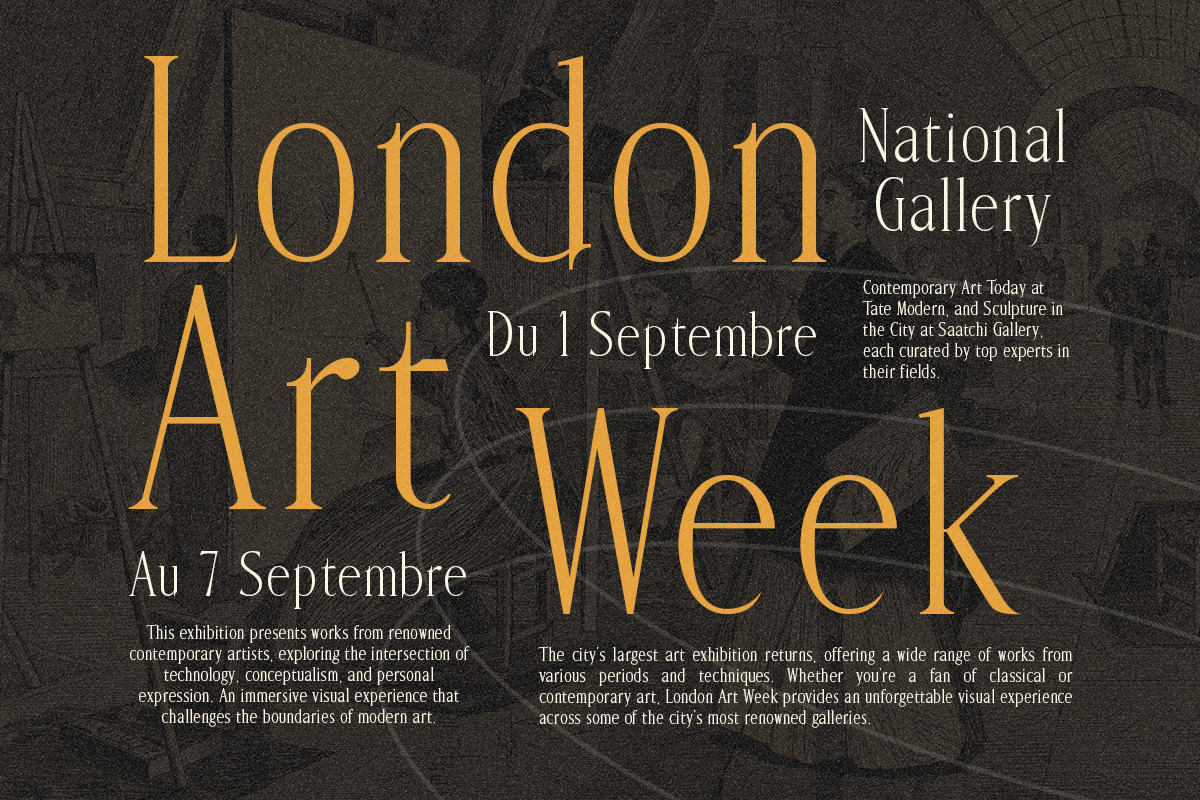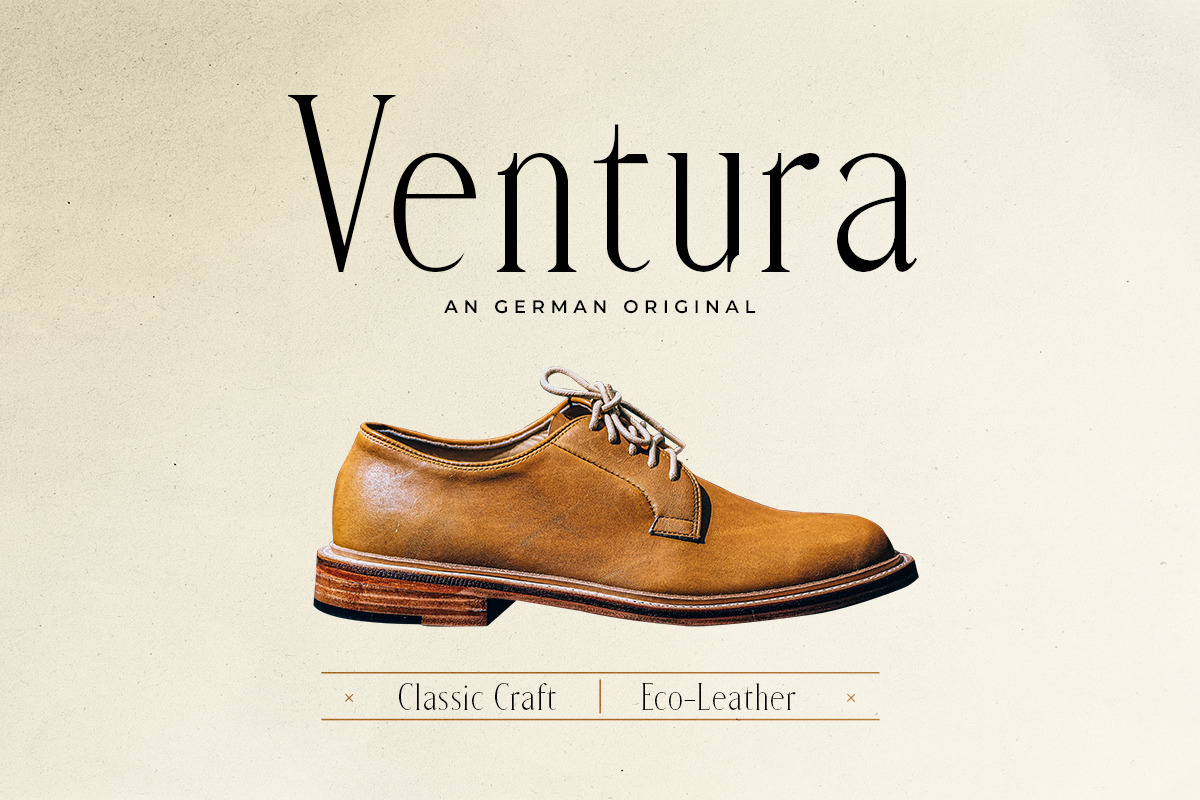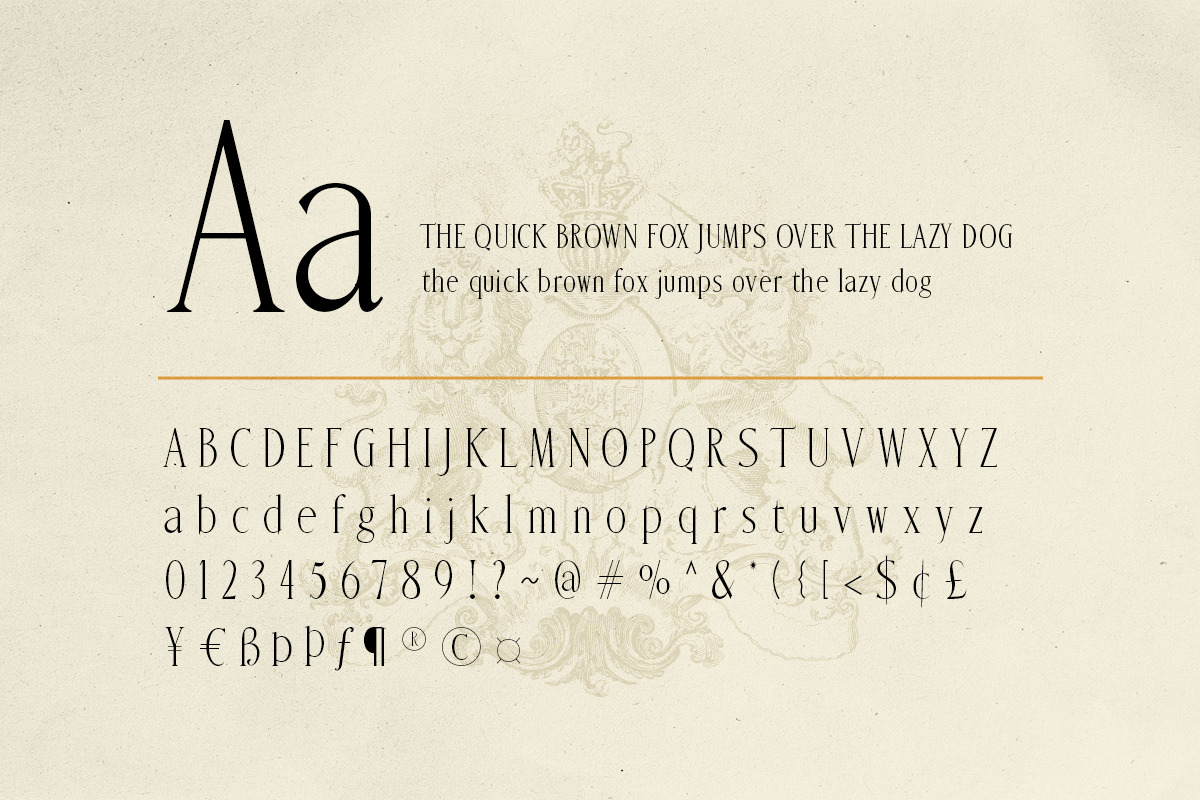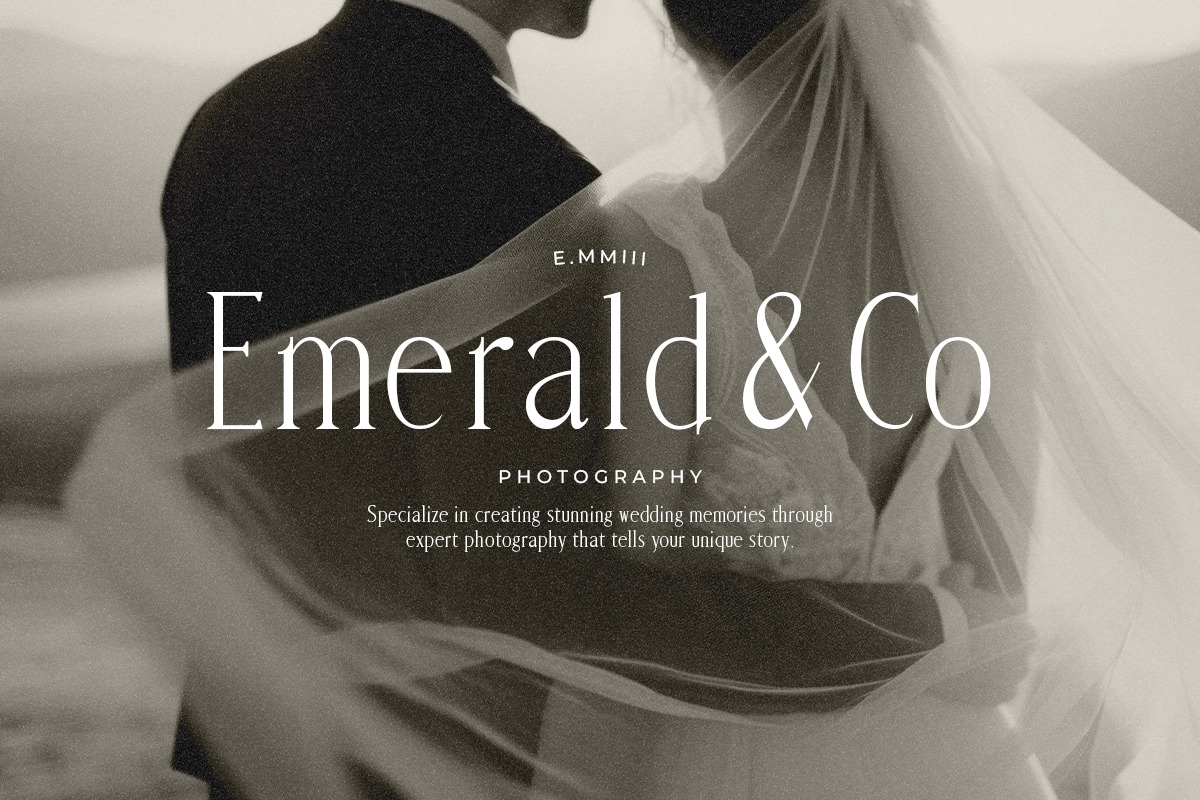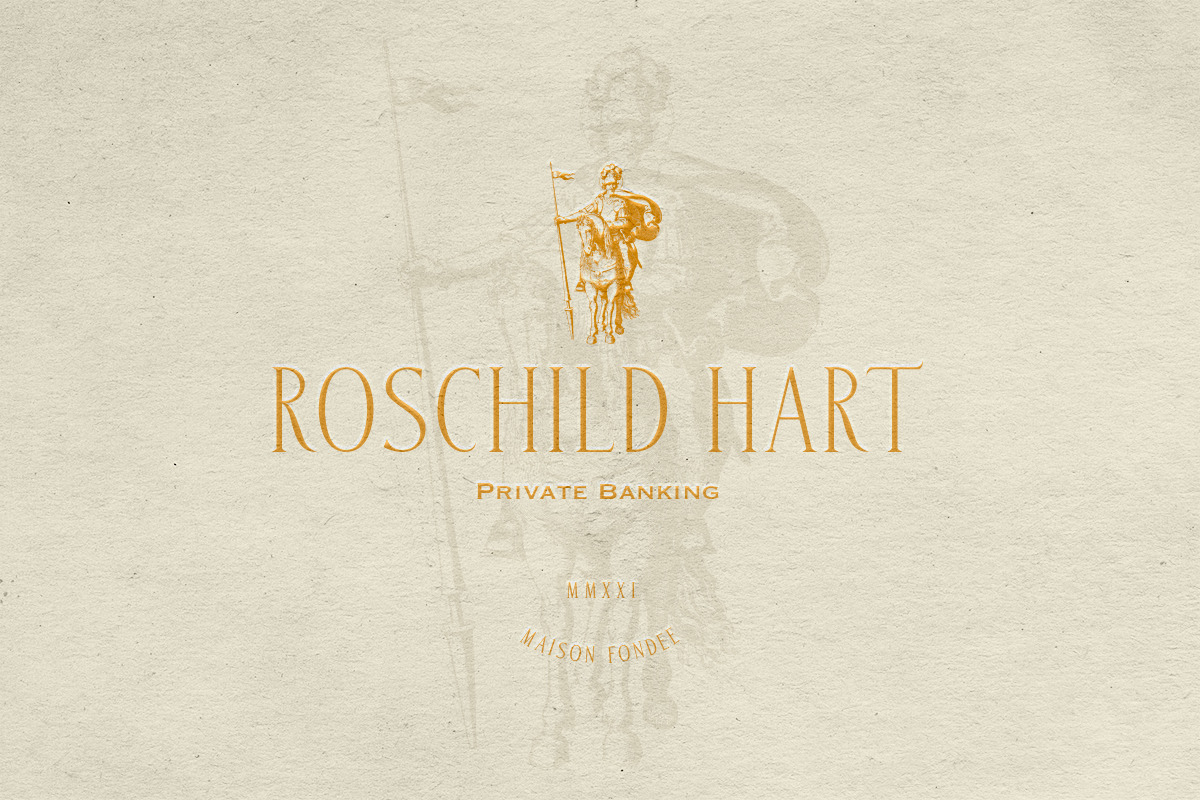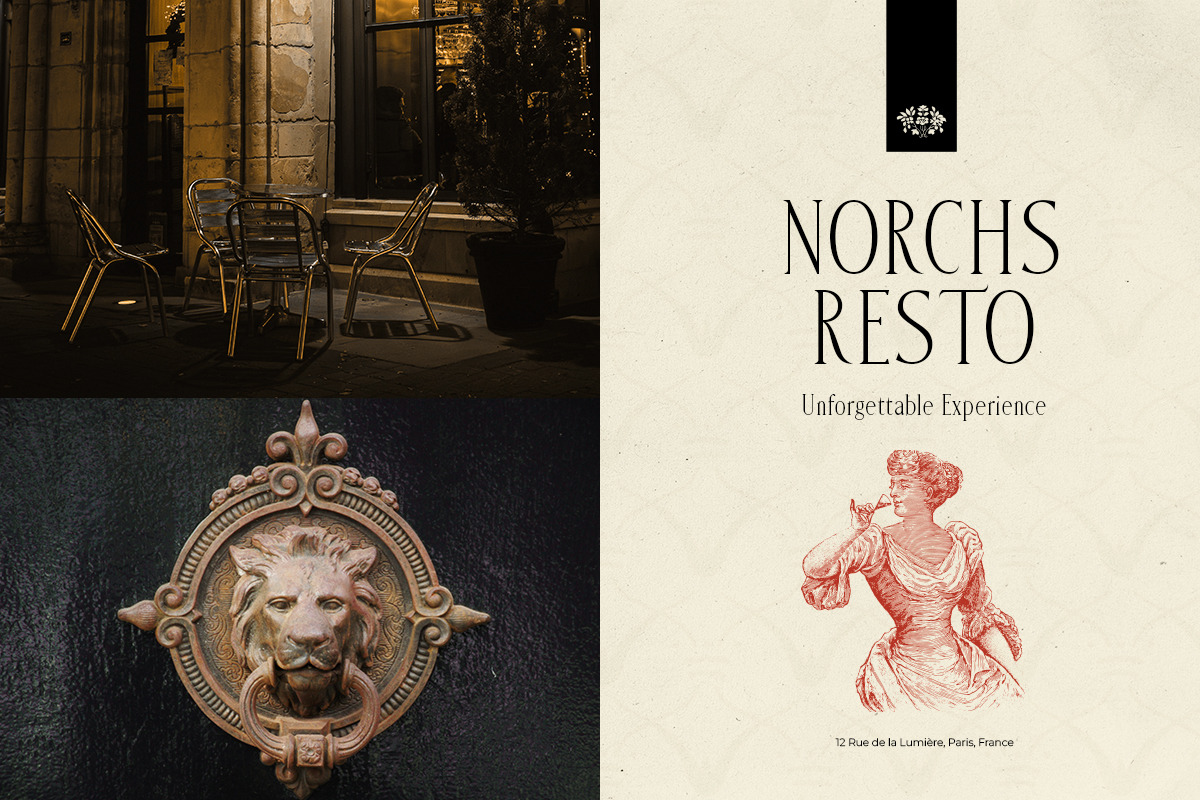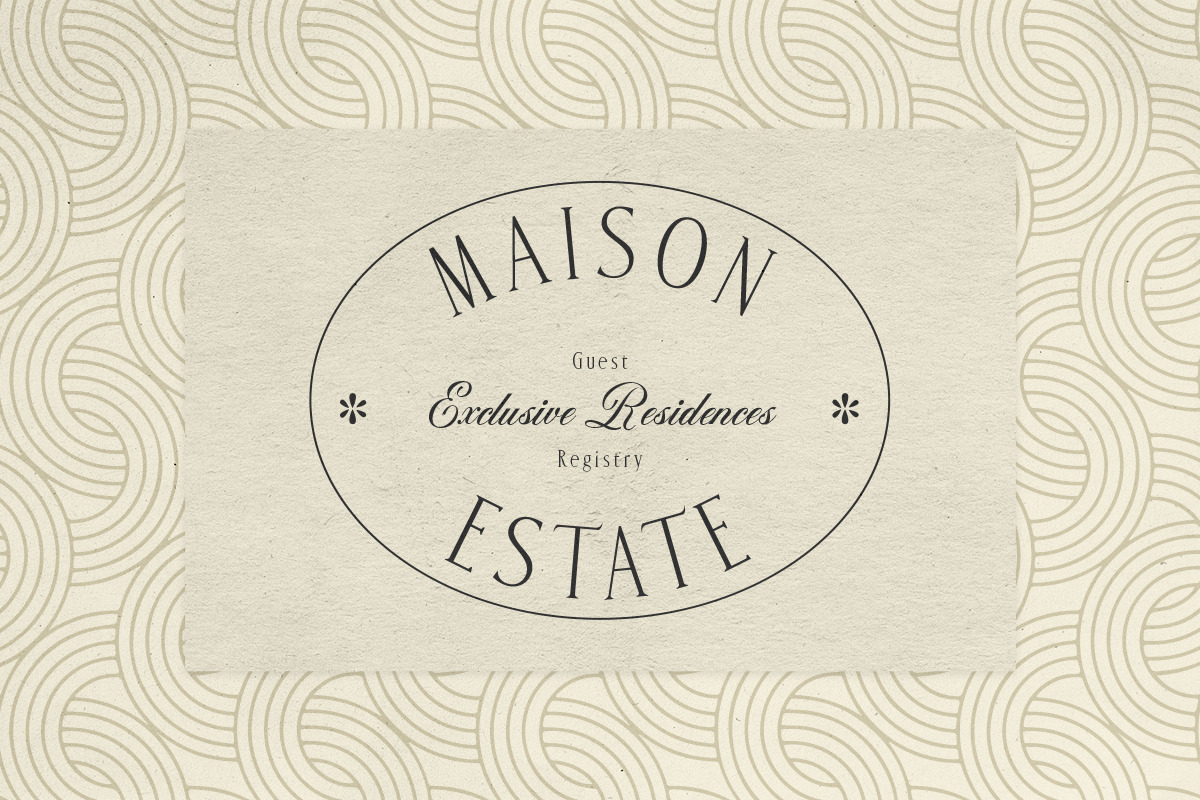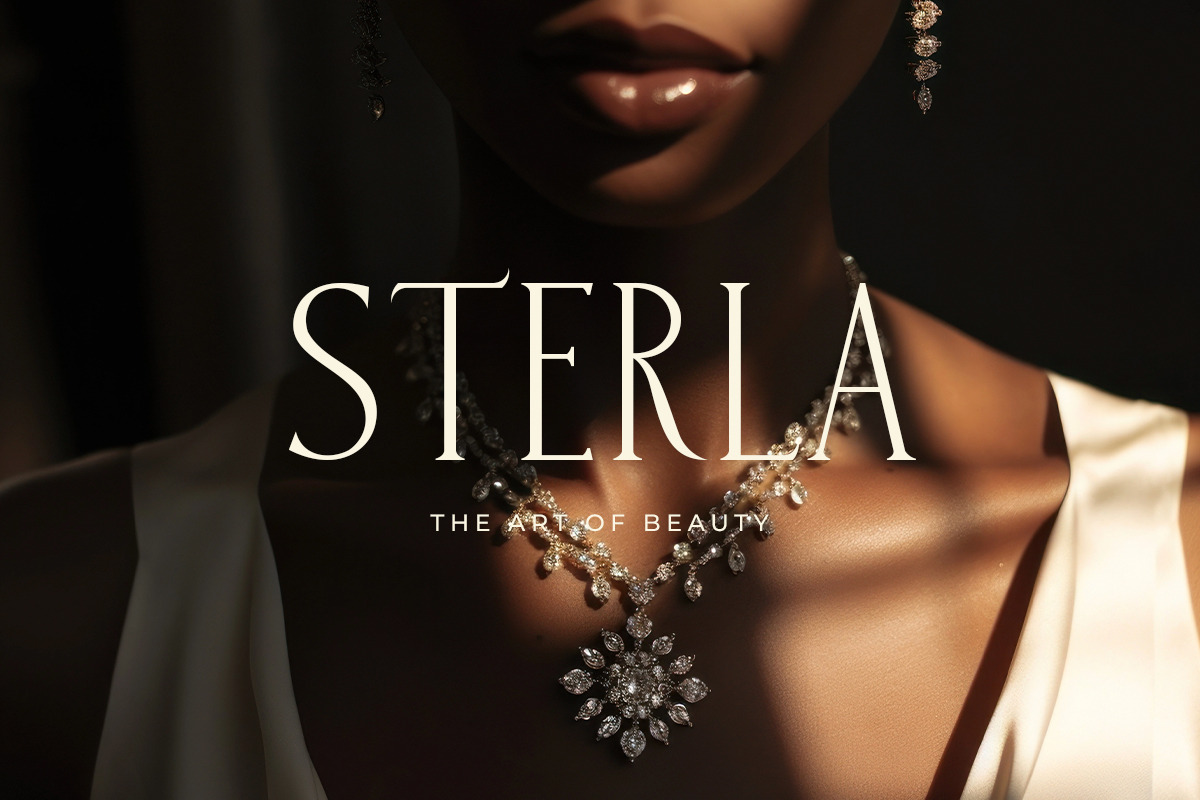
Malimbu - Exclusivity Serif
Elegant serif typeface that combines timeless tradition with modern sophistication. Its sleek lines and subtle curves make it ideal for upscale branding, luxury design, and refined digital content. Perfect for projects that require a touch of grace and professionalism.